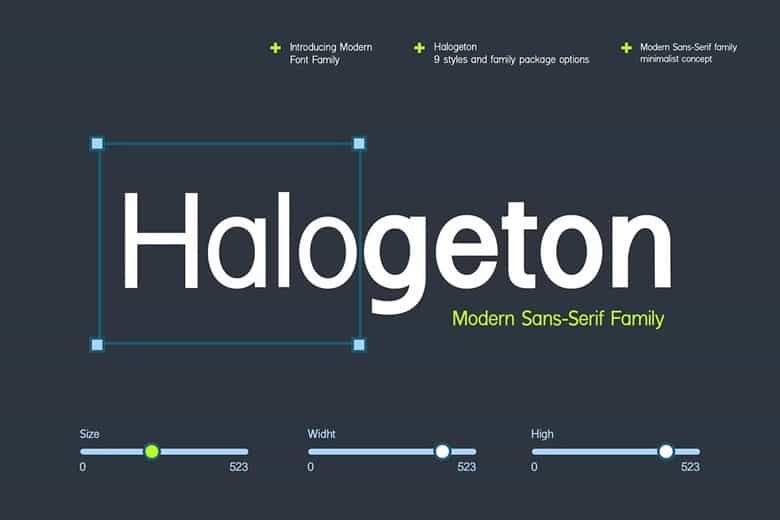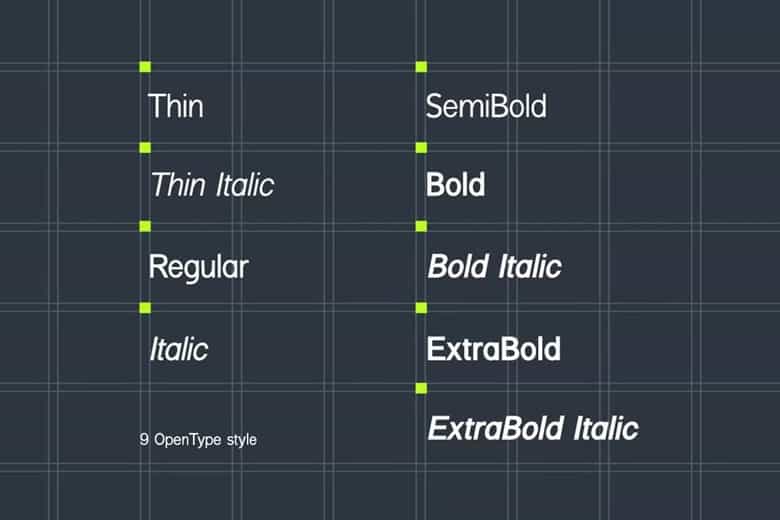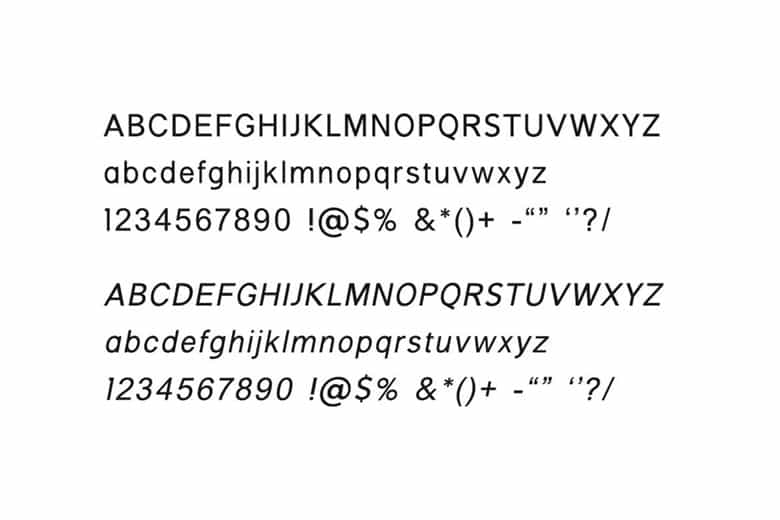
Halogeton is an elegant and modern sans serif font family. This font is appropriate for signature, appointment setting, logo, wedding, typography quotes, magazine or book cover, web banner, brand, and many more purposes. Also, fashion-related branding or editorial design has the aspect of both being masculine and feminine.